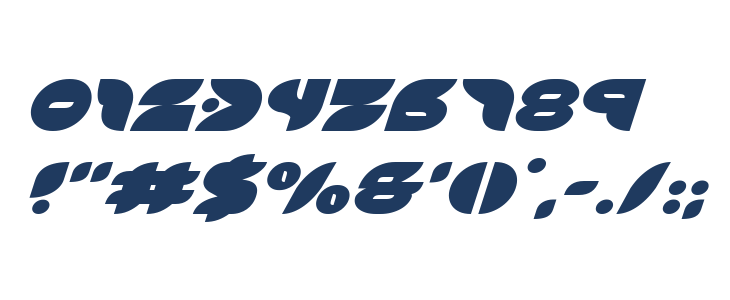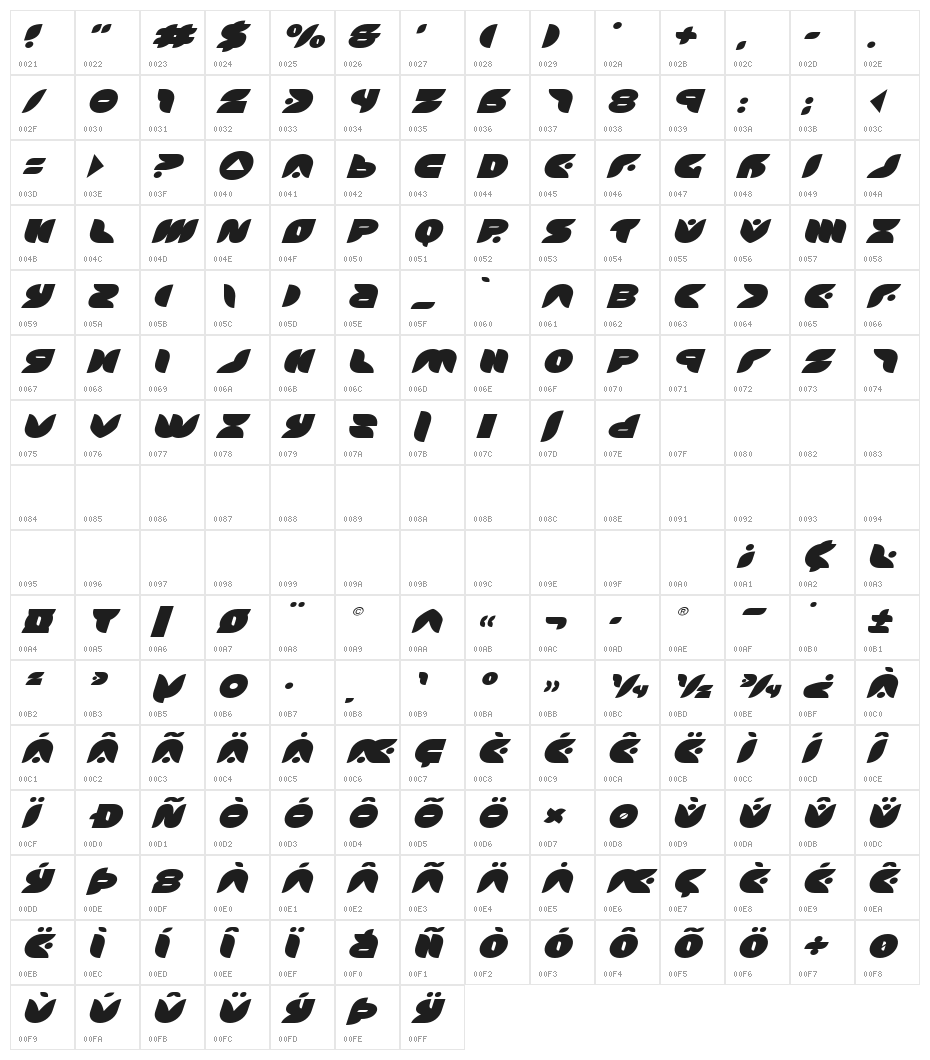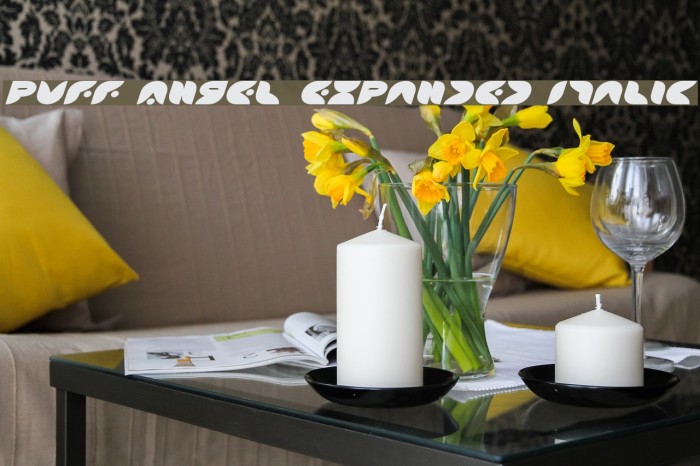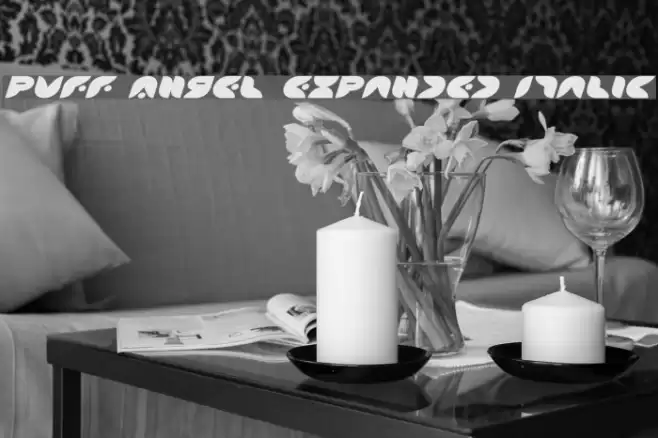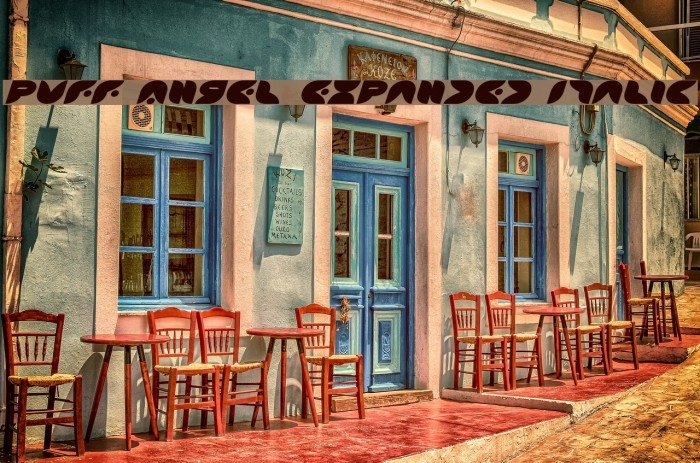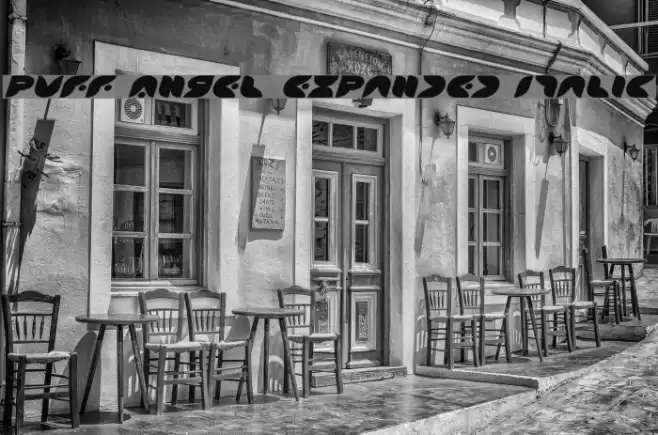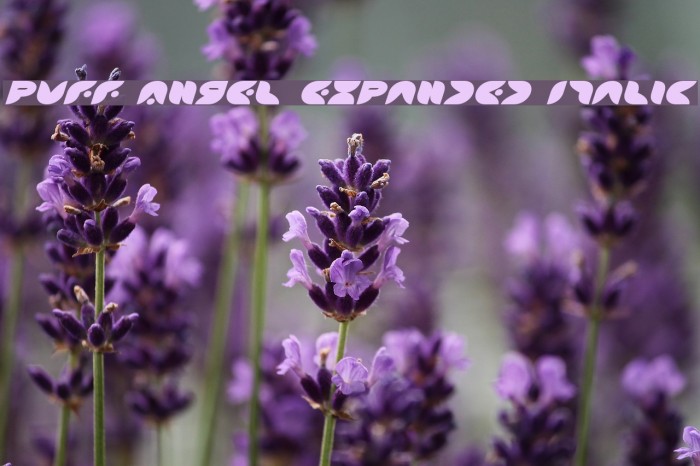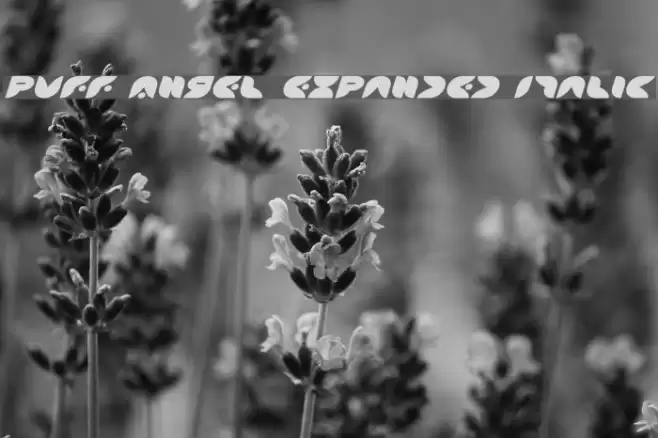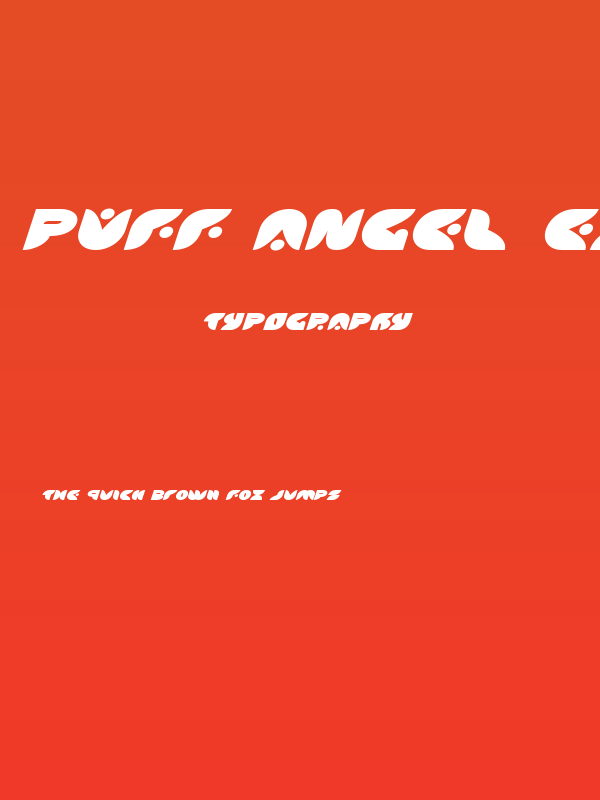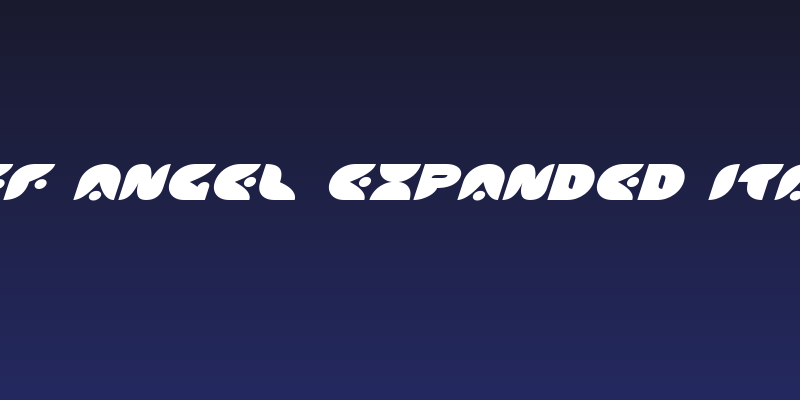
Puff Angel Expanded Italic Font
Puff Angel Expanded Italic Description
This font features a bold and playful design with a distinctly modern flair. The characters are heavily stylized with thick, rounded strokes and a unique expanded form that gives them a sense of movement and energy. The italic slant adds a dynamic touch, enhancing the font's lively appearance. Each letter is crafted with a sense of whimsy, making it ideal for creative and eye-catching designs. The font's boldness ensures high visibility, while its expanded width provides a spacious feel. This combination of characteristics makes it suitable for projects that require a fun and engaging typeface.
| Proposed Projects | Ideal for children's books, playful branding, posters, and creative advertising campaigns. |